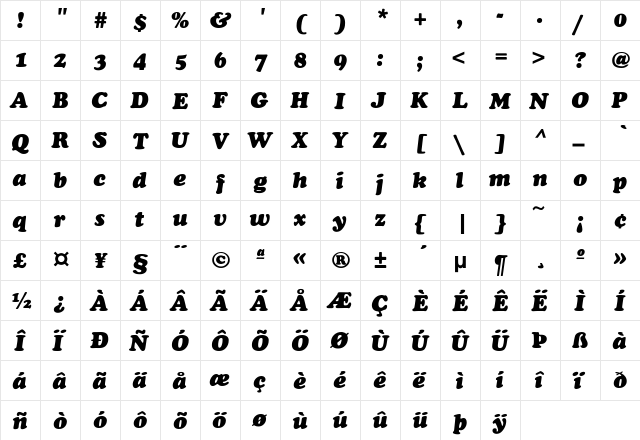
Chacey-Heavy-Italic Regular
Design Context for Chacey-Heavy-Italic Typeface
Chacey-Heavy-Italic takes a measured approach to typography — its balanced proportions and neutral character make it a reliable workhorse for both digital and print work. The dynamic lean of this cut emphasises speed and emphasis in any layout.